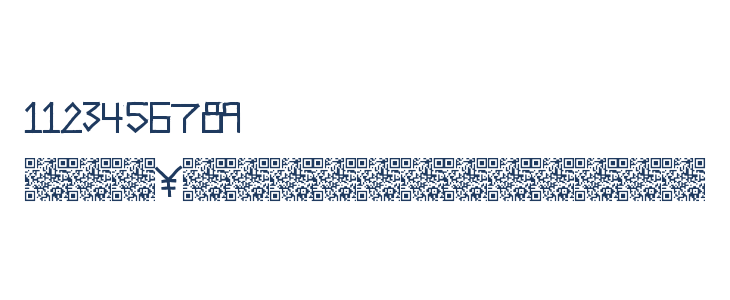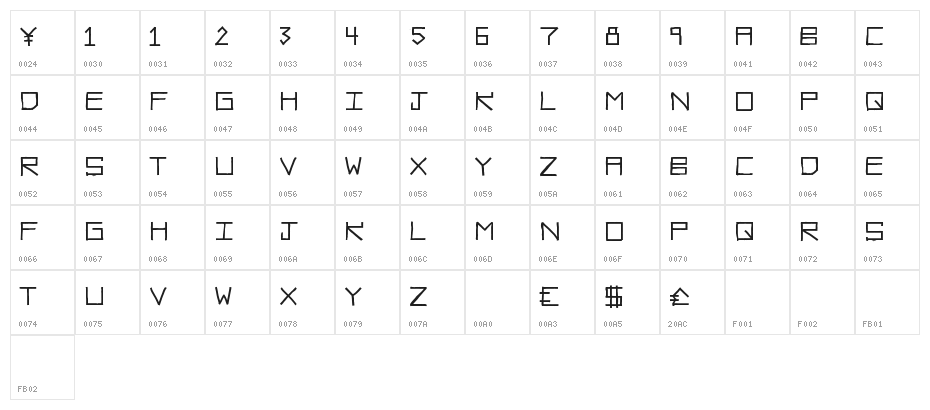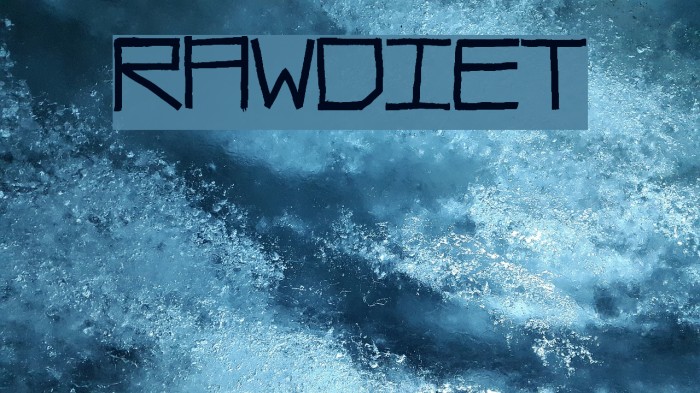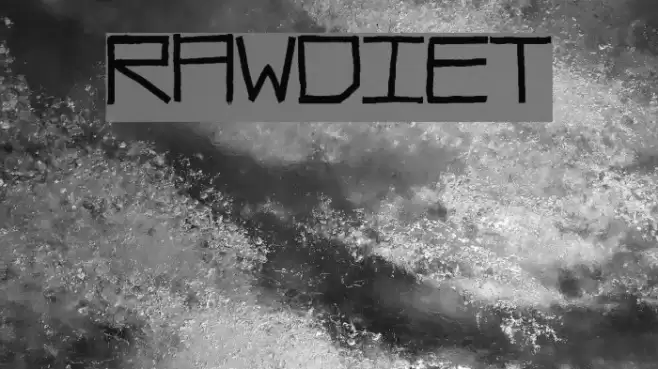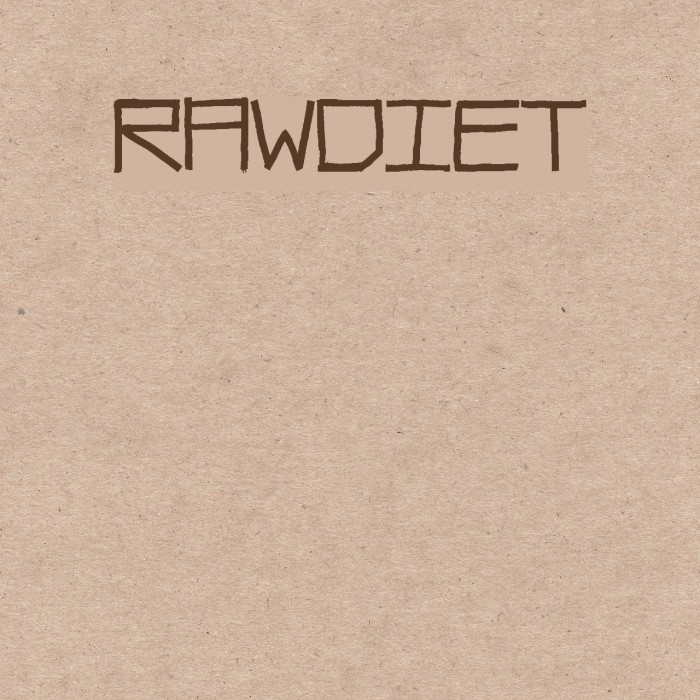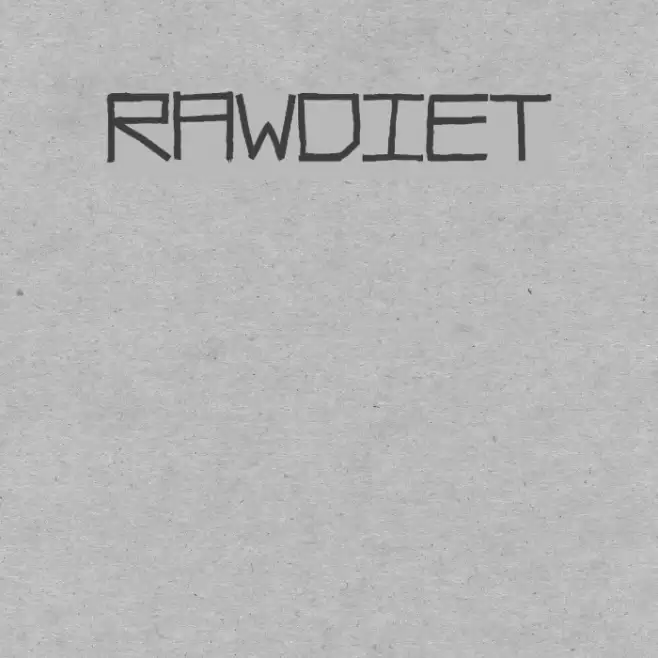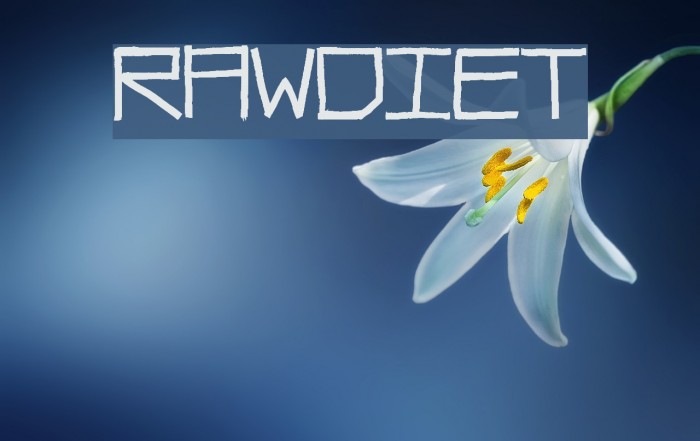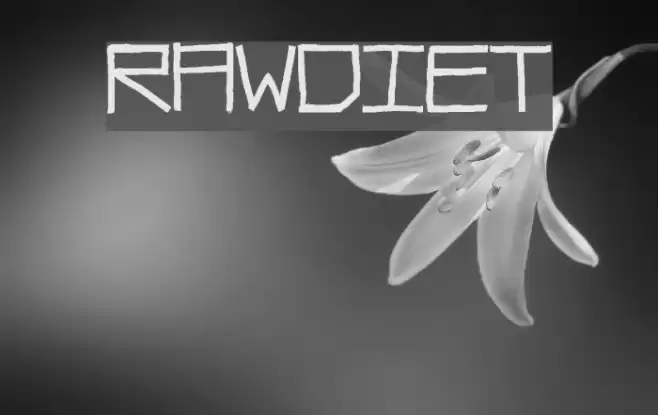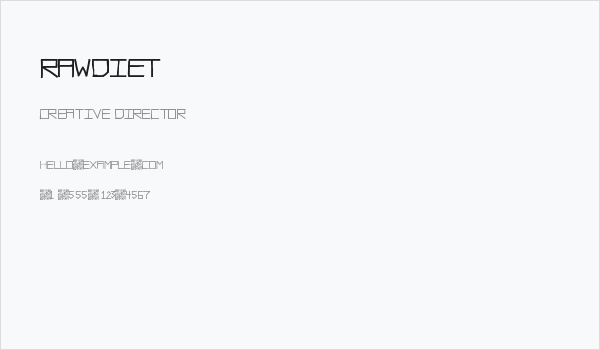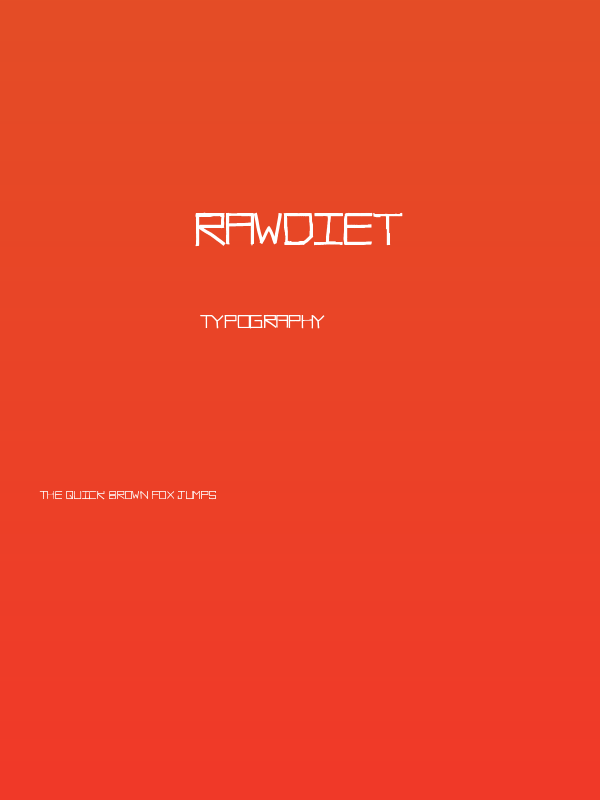
RawDiet Font
RawDiet Description
This font features a distinctive, hand-drawn style with a rough, textured appearance. The characters are constructed with uneven lines, giving them a raw and organic feel. The uppercase and lowercase letters maintain a consistent height, contributing to a uniform look across the text. The numbers and special characters follow the same design principles, ensuring cohesion throughout. The font's unique style makes it stand out, ideal for projects that require a bold and artistic touch.
Use CaseLogos, Posters, Artistic projects
Proposed ProjectsIdeal for artistic projects, album covers, posters, and branding that require a unique, hand-crafted look.